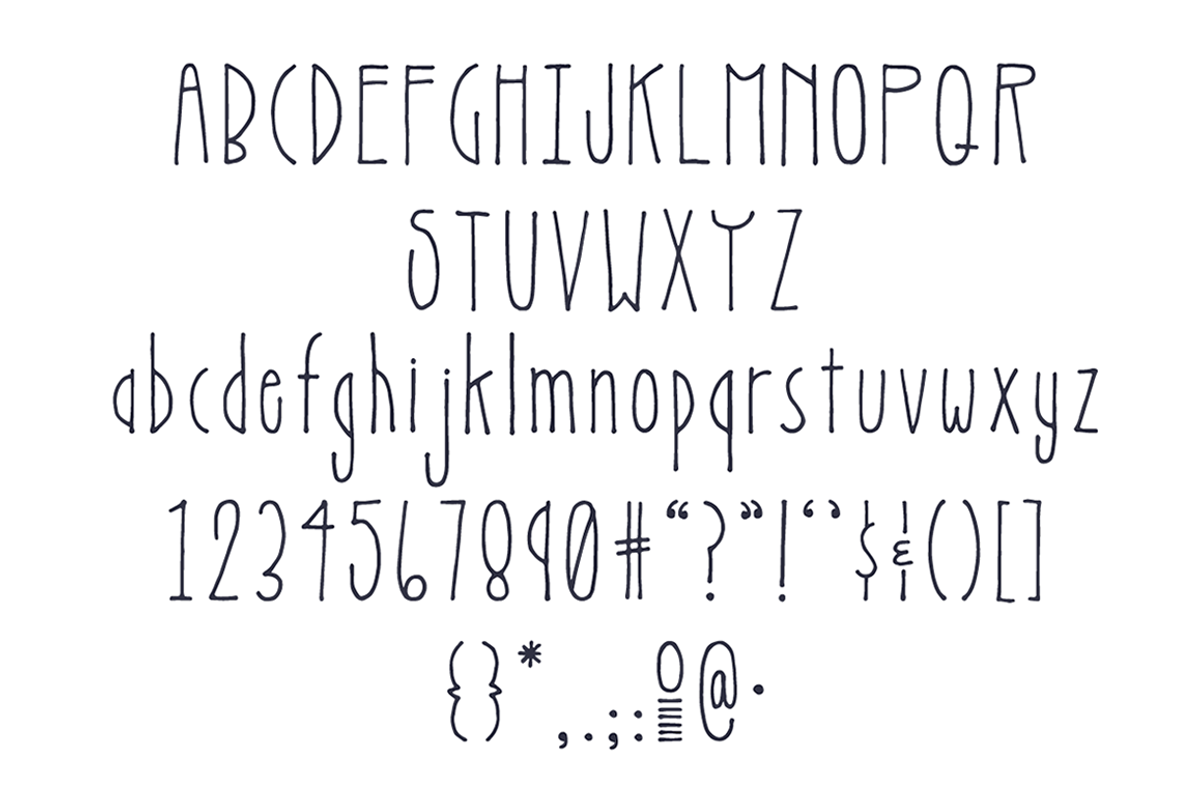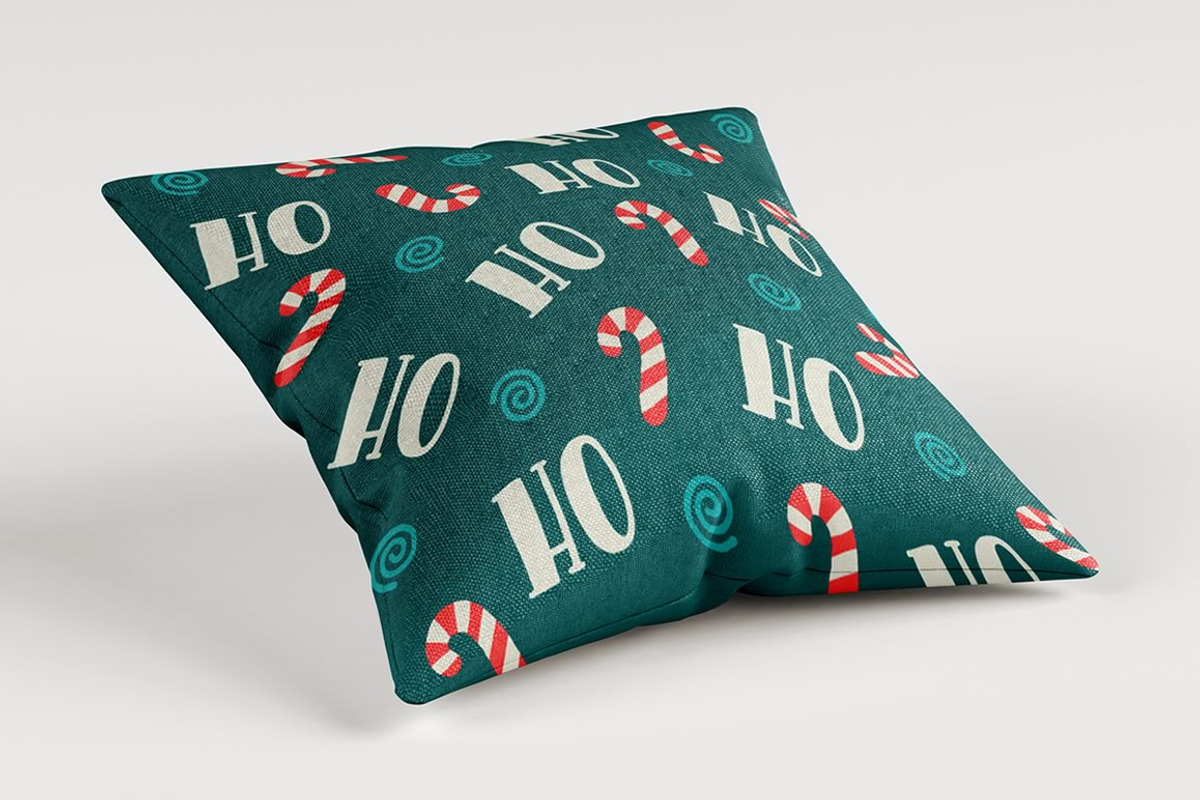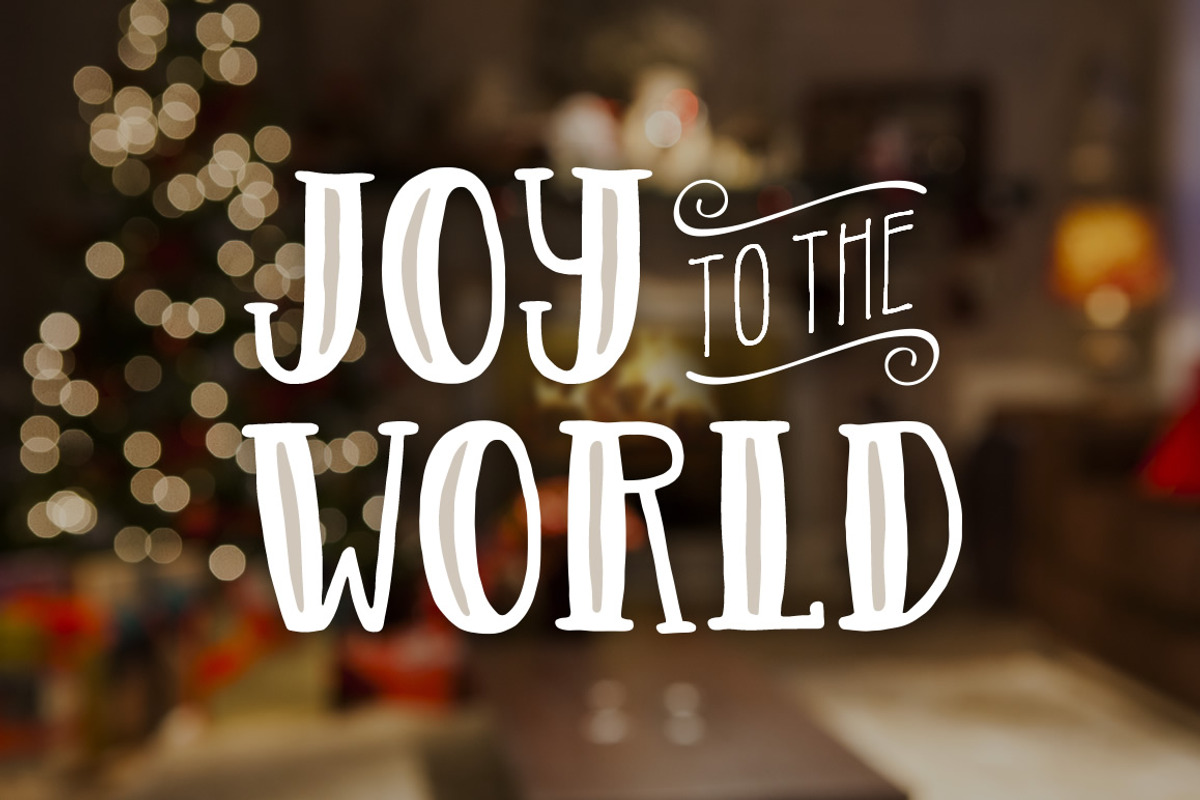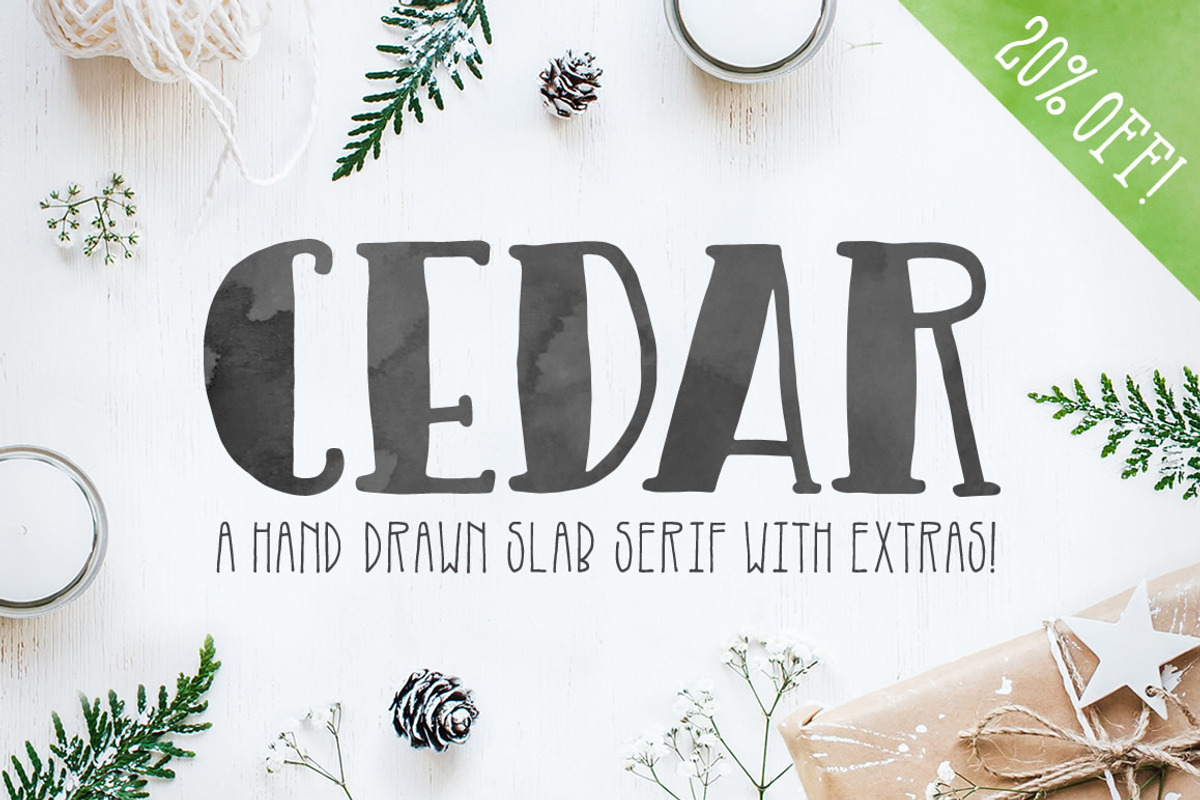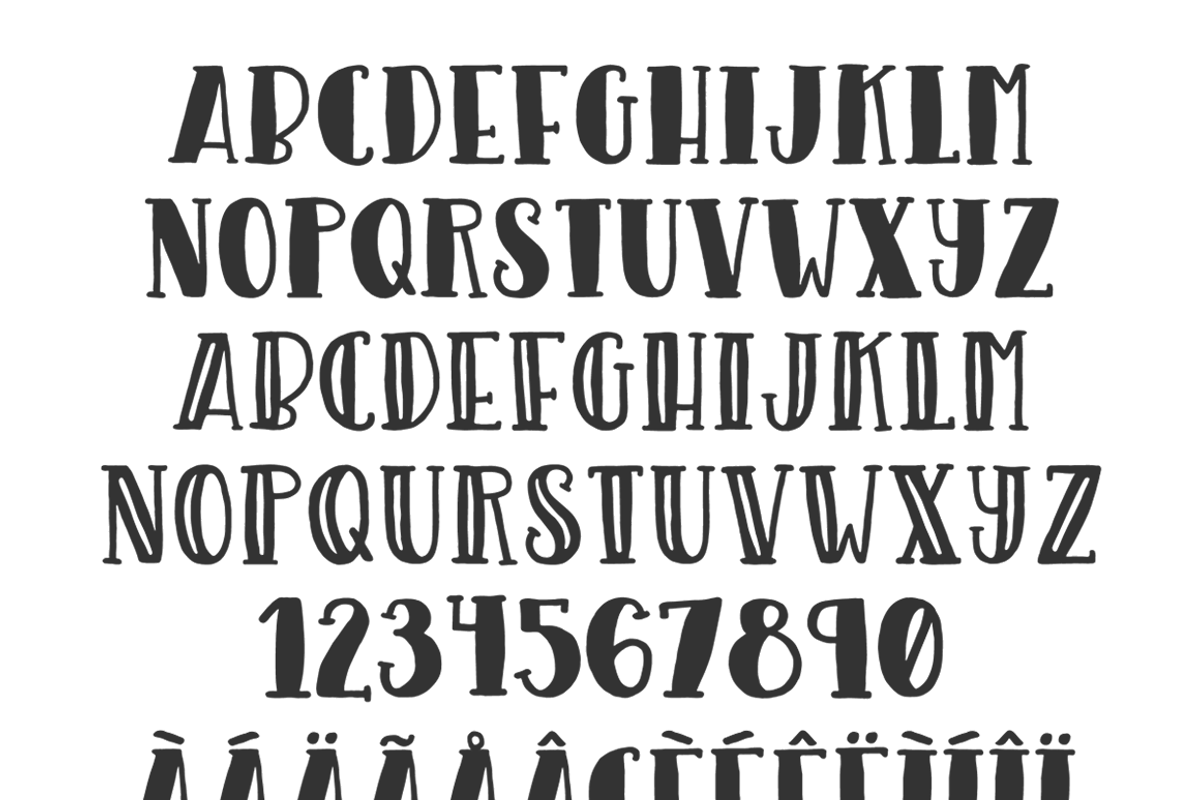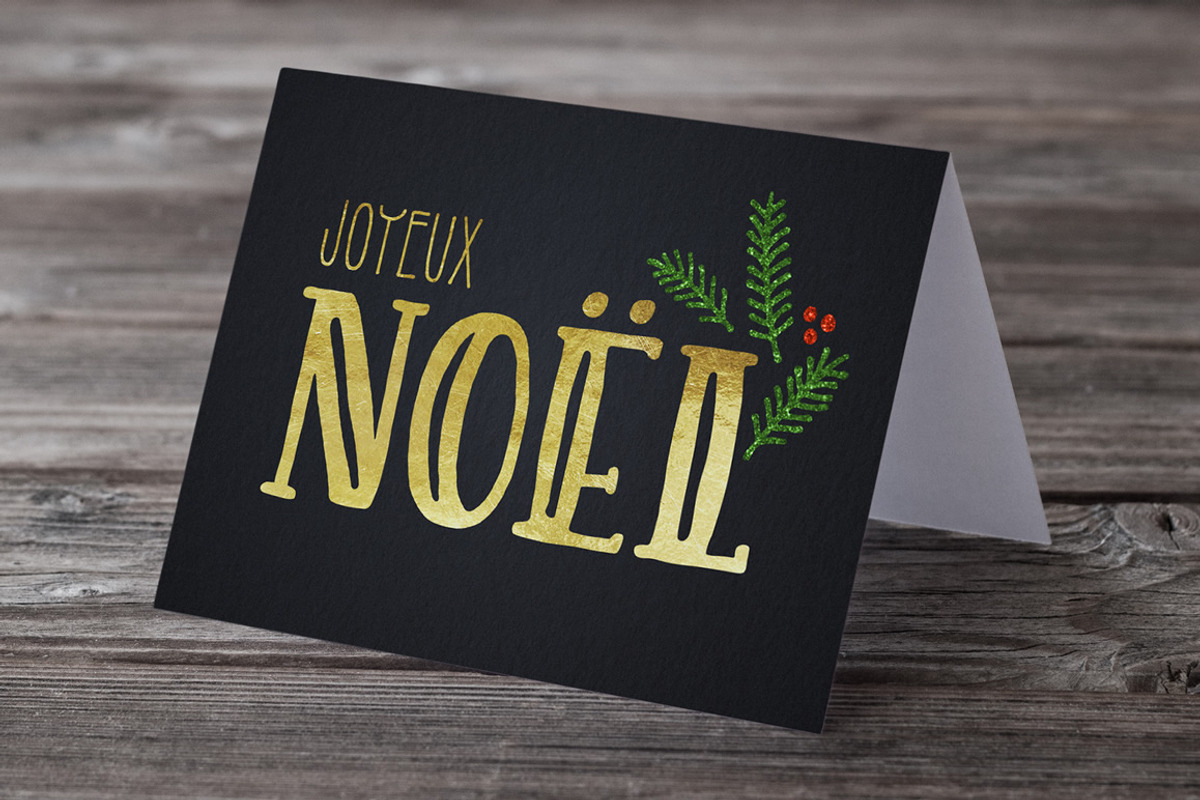
Cedar Font
Cedar Font by Denise Chandler is a font selected for branding, posters, packaging, typography.
- It's thin, stylized characters are a perfect complement to Cedar's bold, thick lines.
Why Cedar Font is worth a look
Cedar Font by Denise Chandler fits naturally into Branding, posters, packaging, typography.